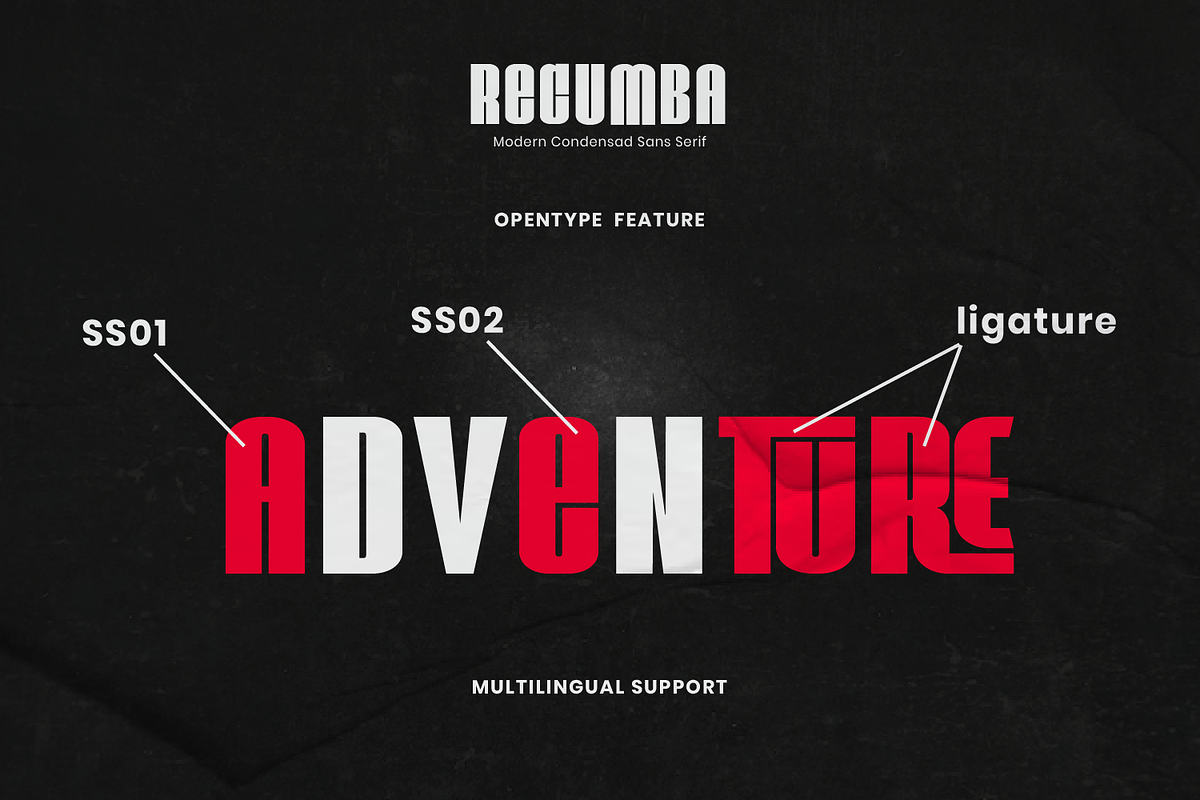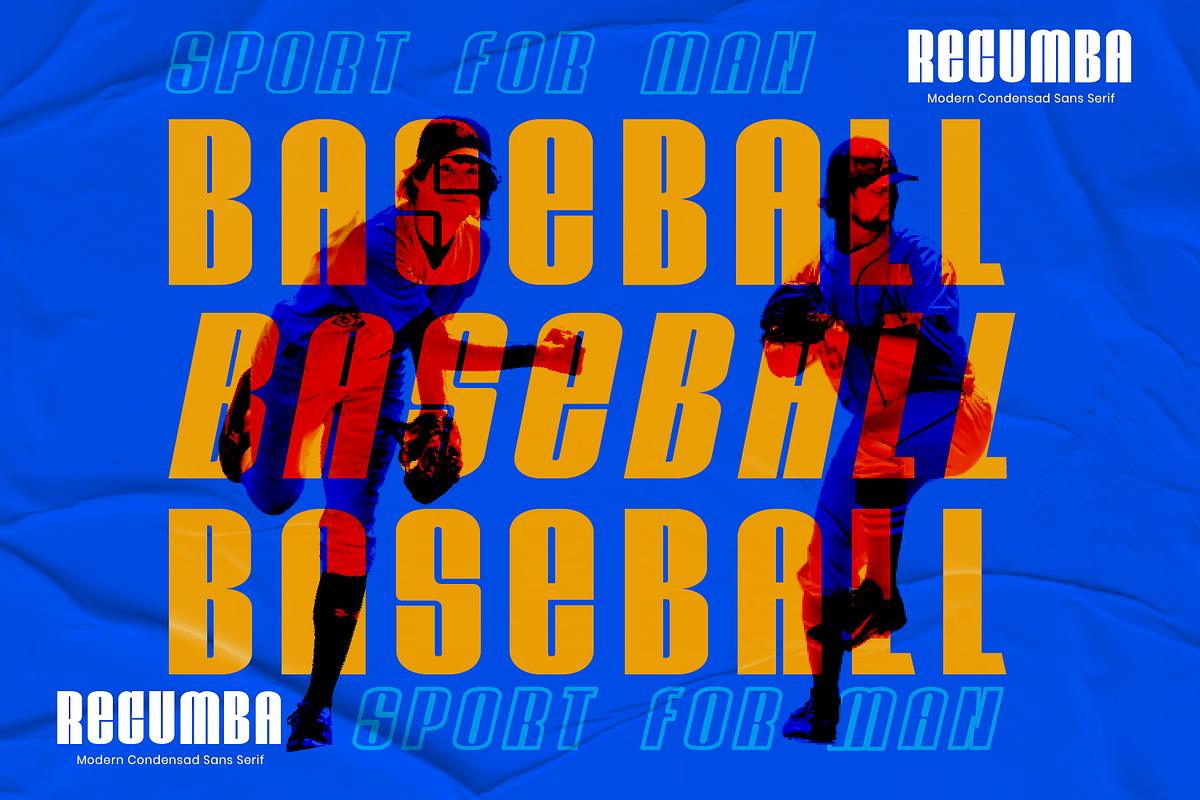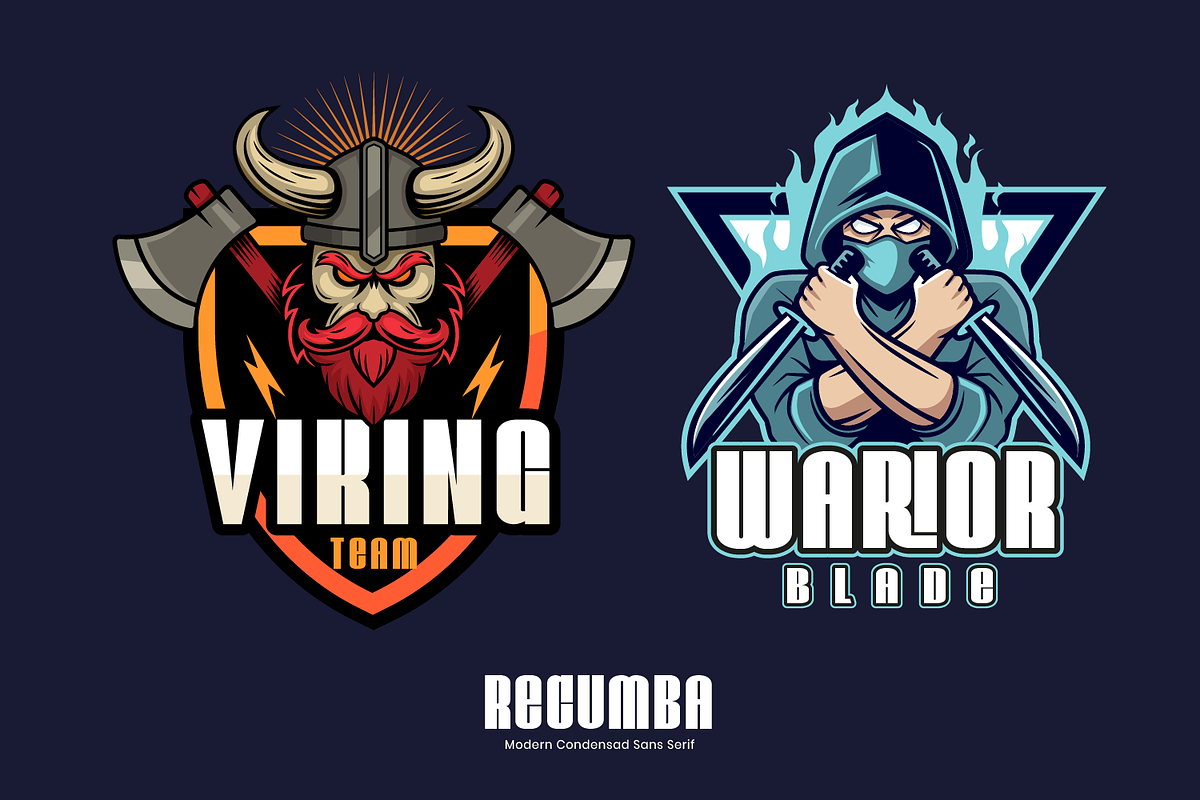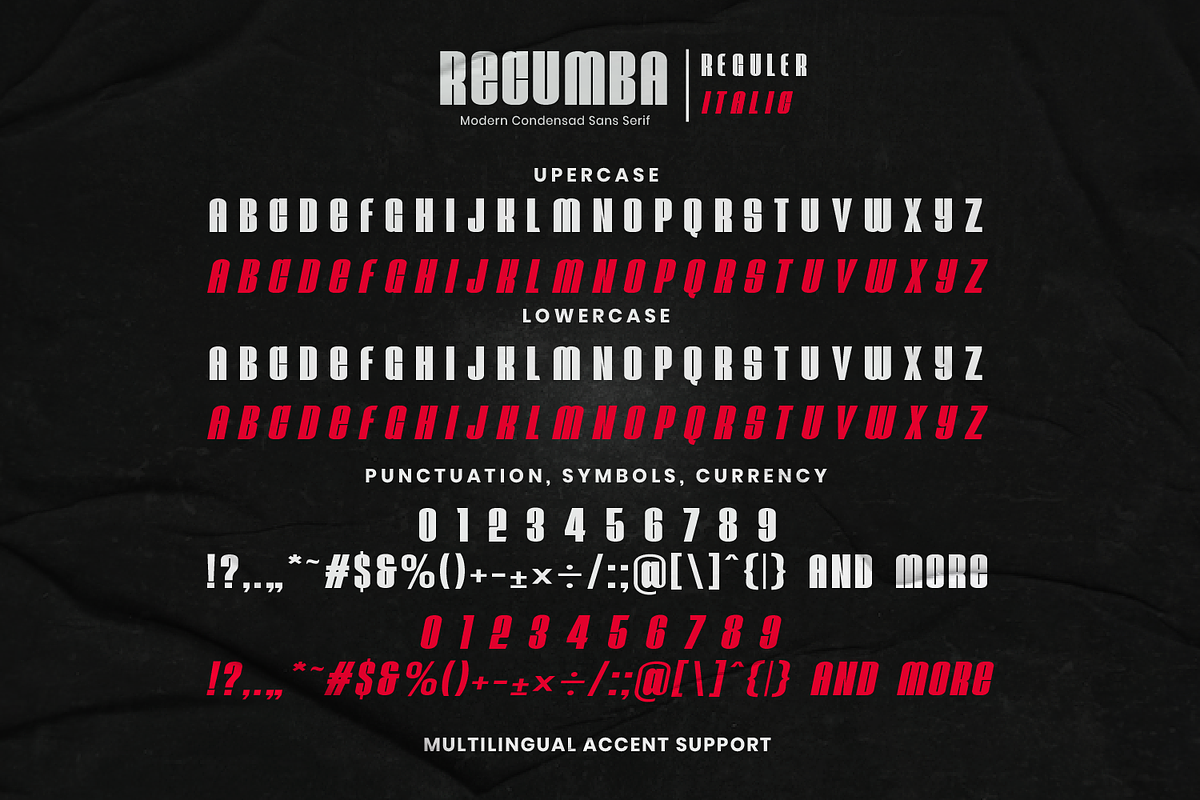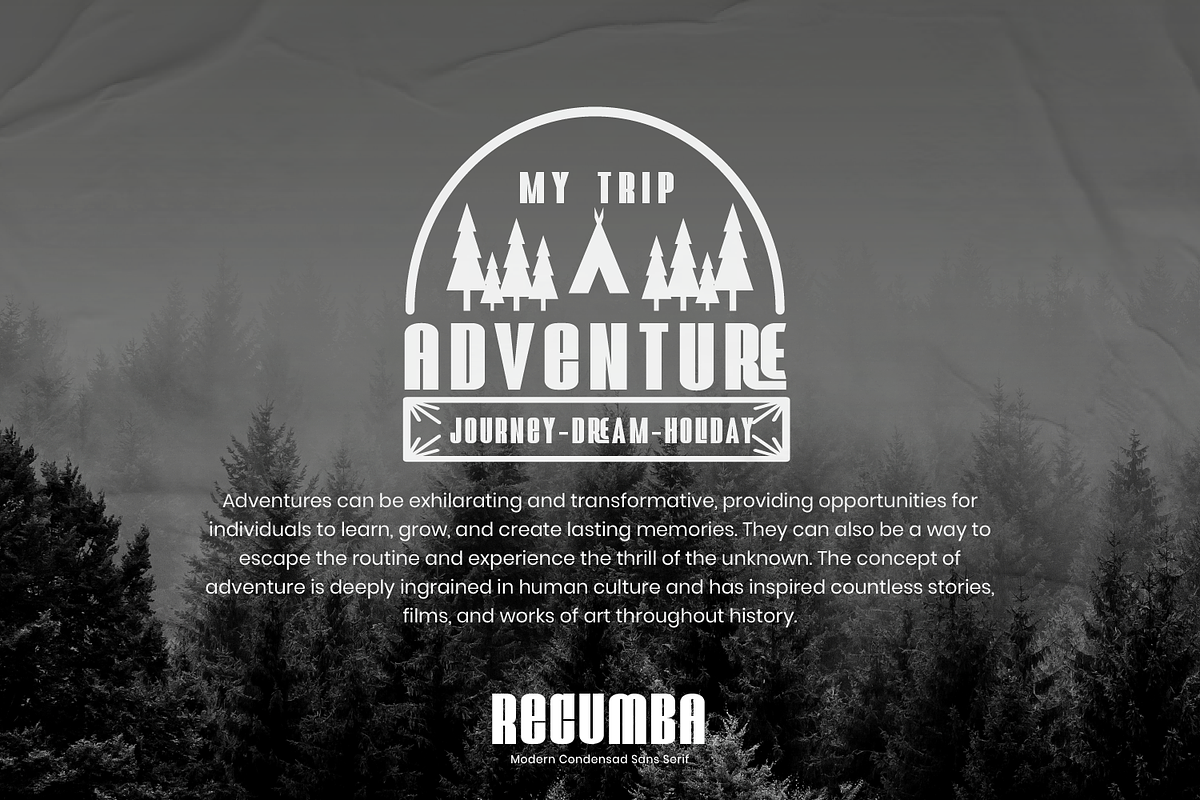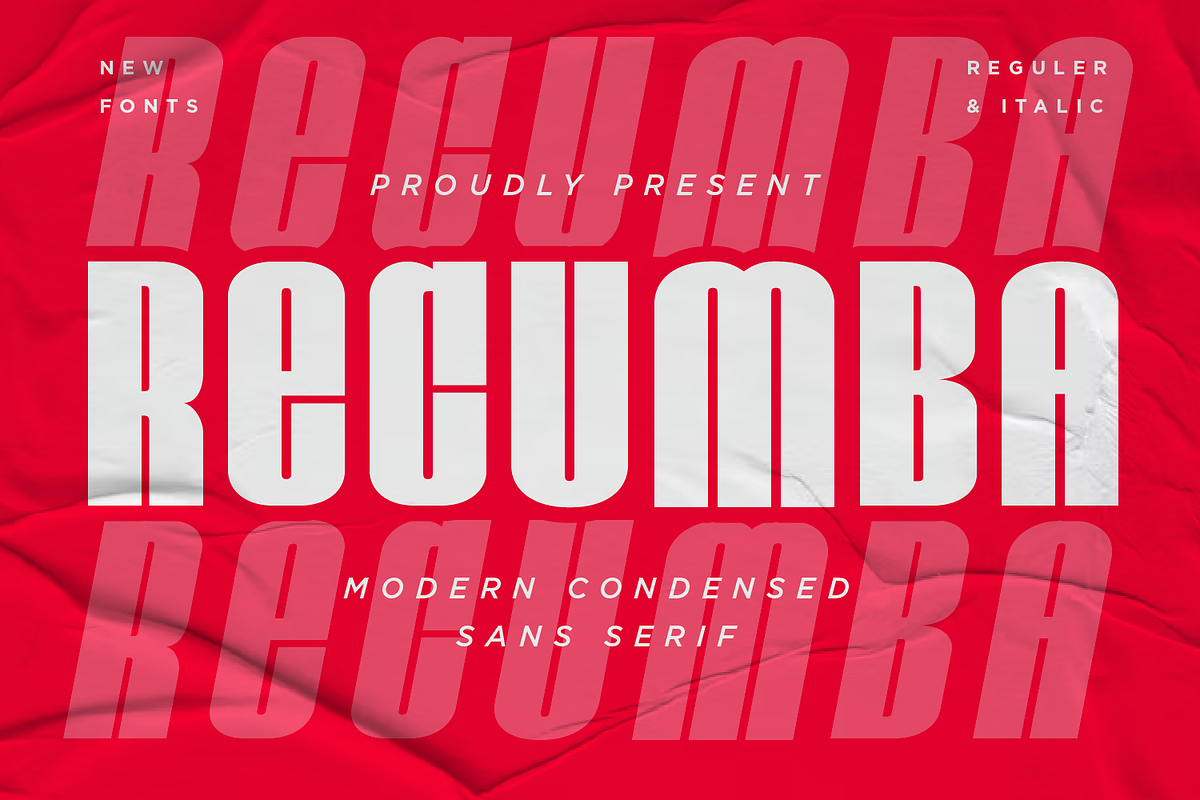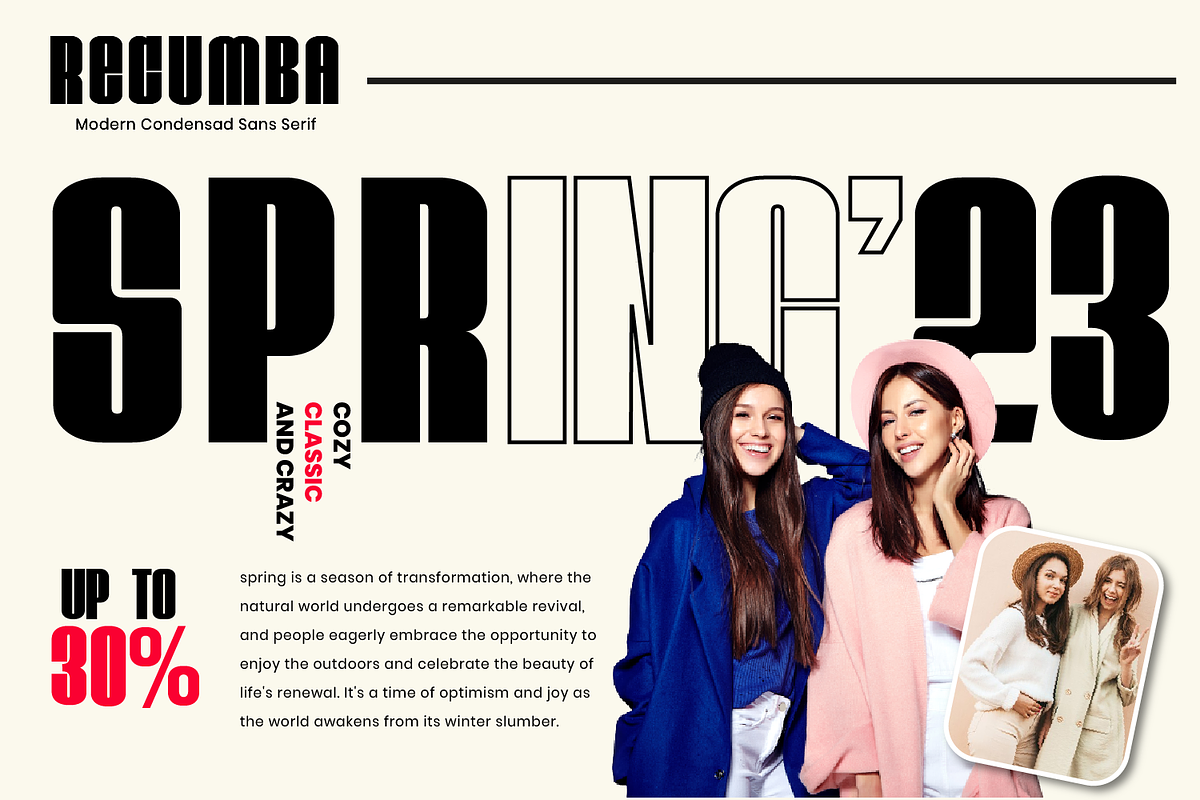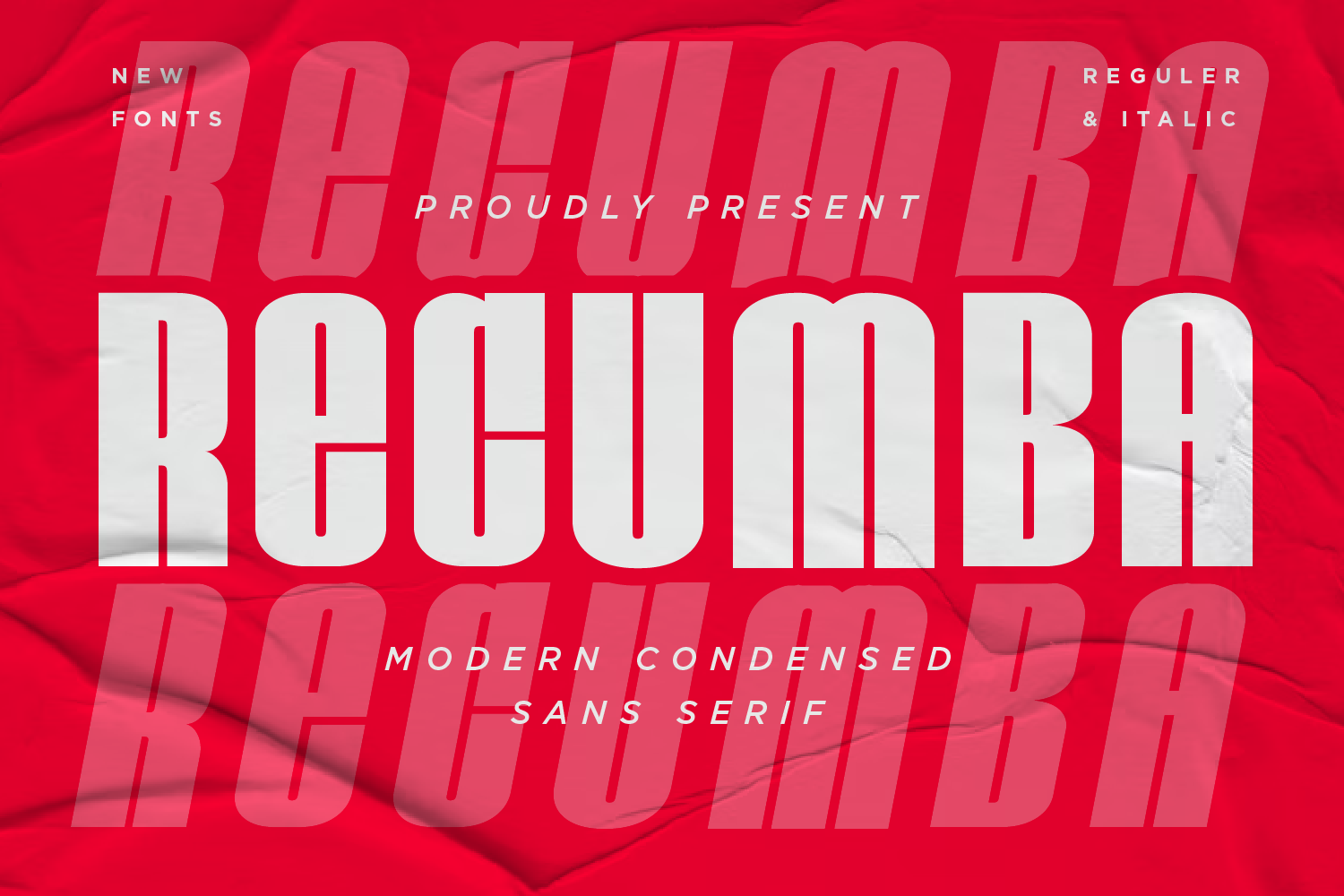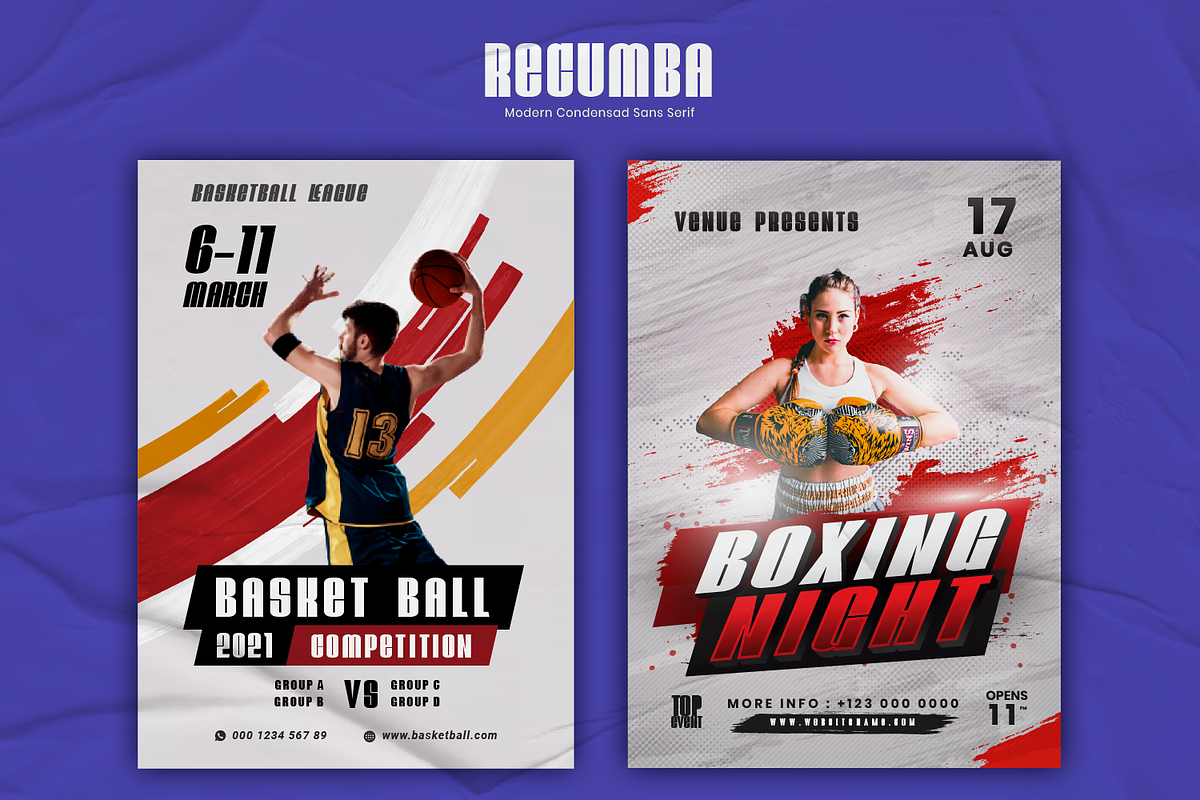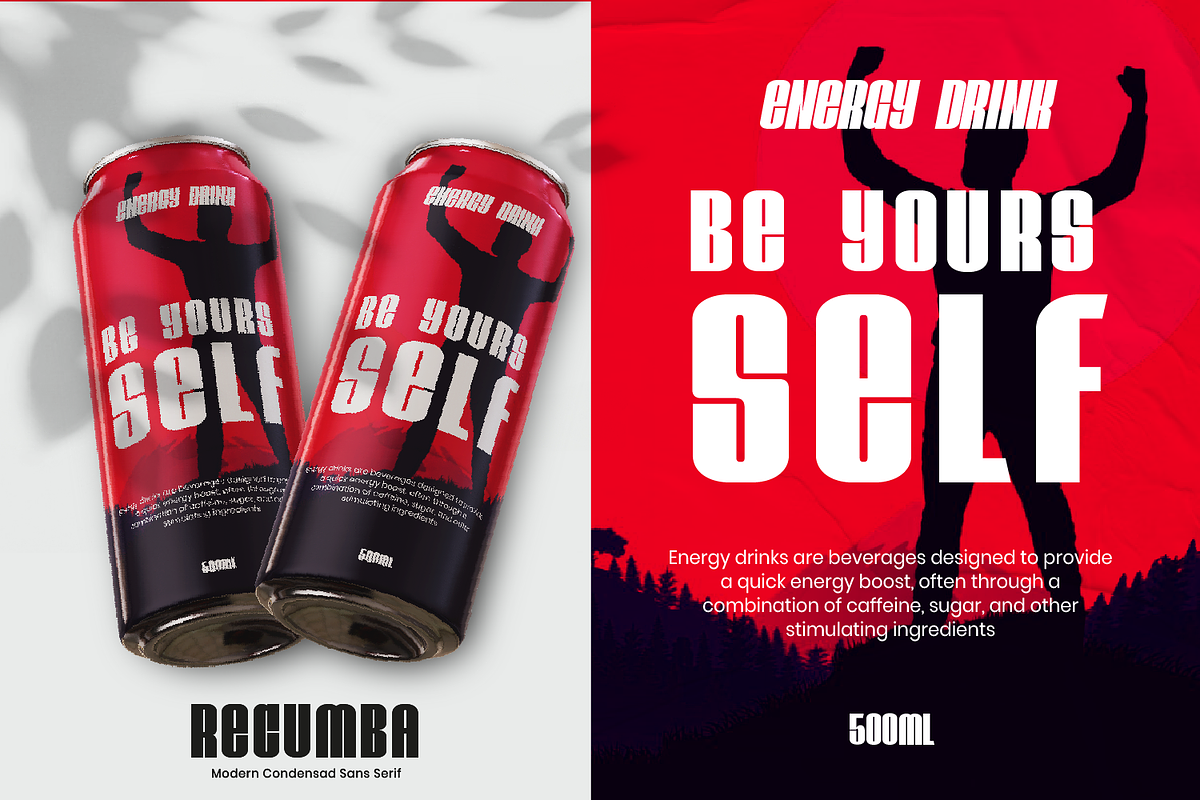
Recumba - Modern Display Font
Introducing Recumba - Modern Display Font
Recumba is modern display font with bold characters.
Recumba is perfectly suited for branding projects, headlines, poster, movie titles, games, logos, social media posts, advertisements, product packaging, labels, photography, watermarks, stationery, and any creative project seeking a touch of modern bold elegance.